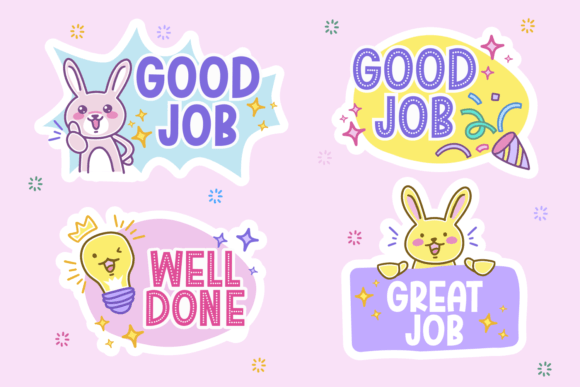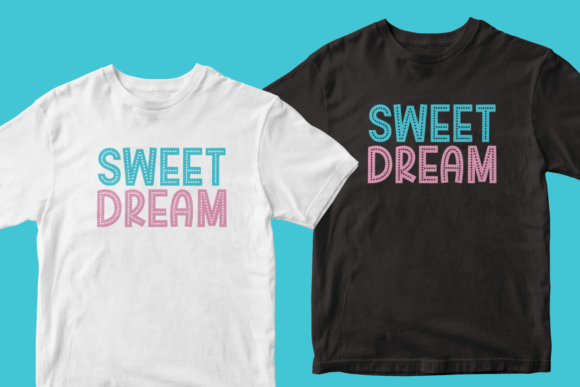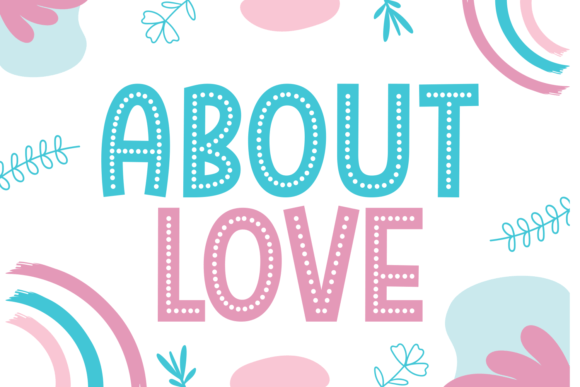
Introduction to Good Party Font
Good Party is a beautiful decorative font that features adorable dotted characters.
Add some charm and sweetness to your typography designs with this lovely font It looks perfect on birthday cards, posters, kids’ t-shirts, coloring books, websites, and more.
Key Features of Good Party Font
Why Choose Good Party Font?
Good Party Font offers exceptional quality and versatility, making it a valuable addition to your design toolkit. Whether you’re creating for personal projects or commercial use, Good Party Font delivers professional results.